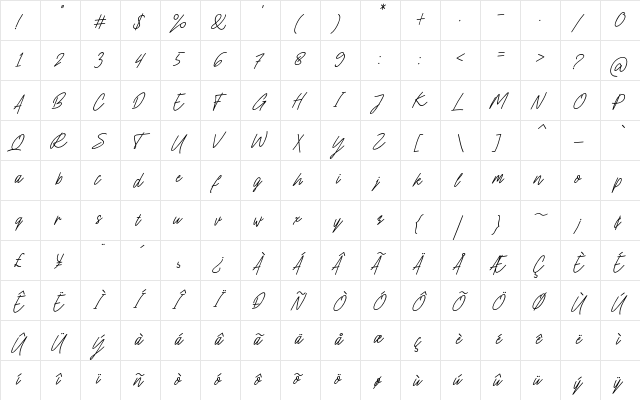
Charlion Slant Script slant
| Foundry | IjemrockartStd_FERDIANSYAH |
| Designer | IjemrockartStd_FERDIANSYAH |
Design Context for Charlion Slant Script Typeface
Charlion Slant Script brings a calligraphic fluidity to the page — its connecting strokes and expressive curves give it an unmistakably human quality.
Font Pairing: Combine Charlion Slant Script with a simple geometric sans for maximum contrast — the tension between flowing curves and clean structure is a classic typographic pairing.
Pro Tip: Use Charlion Slant Script for short runs of text — names, titles, or taglines. Extended body copy in script faces tires the eye quickly.